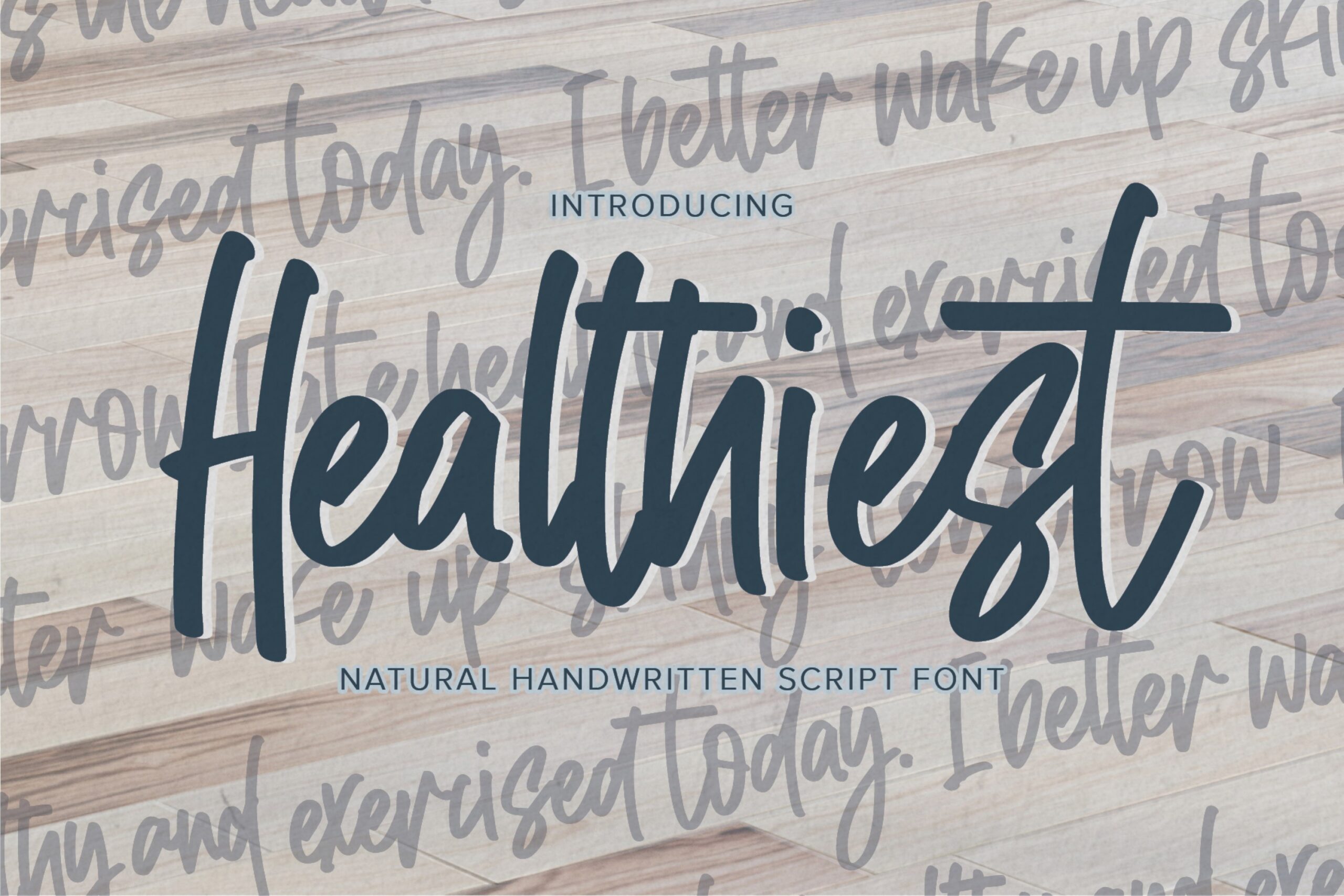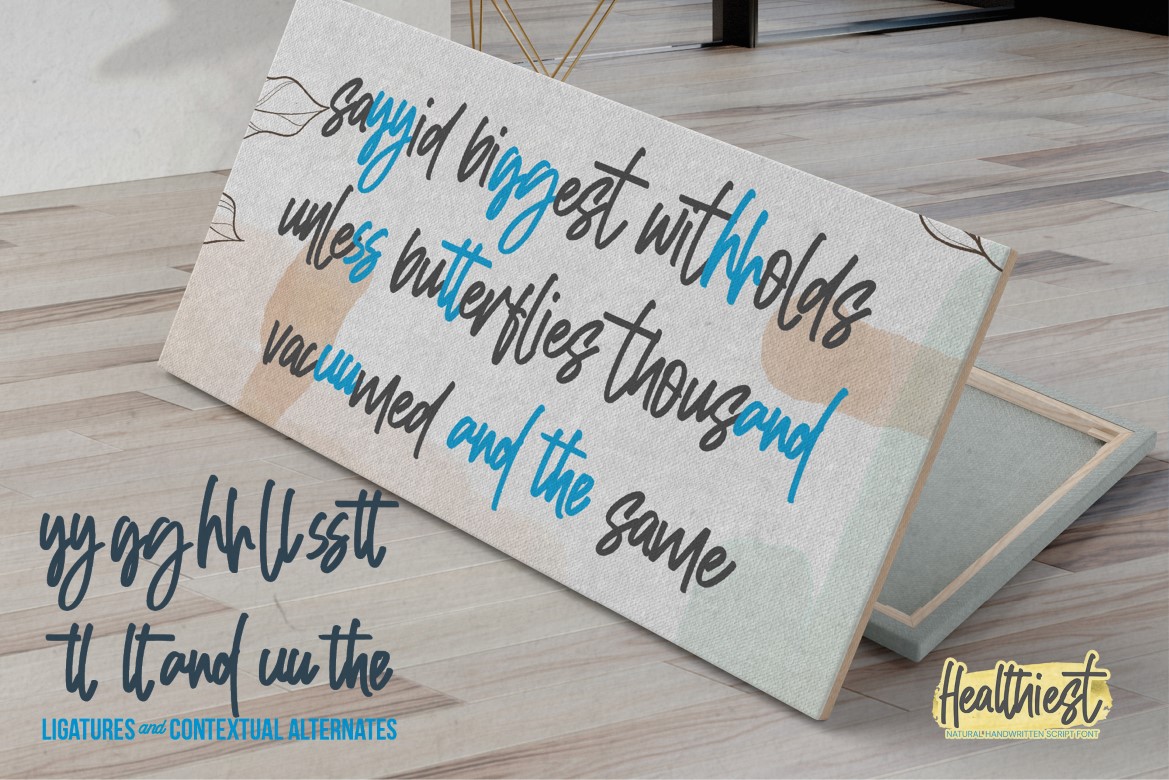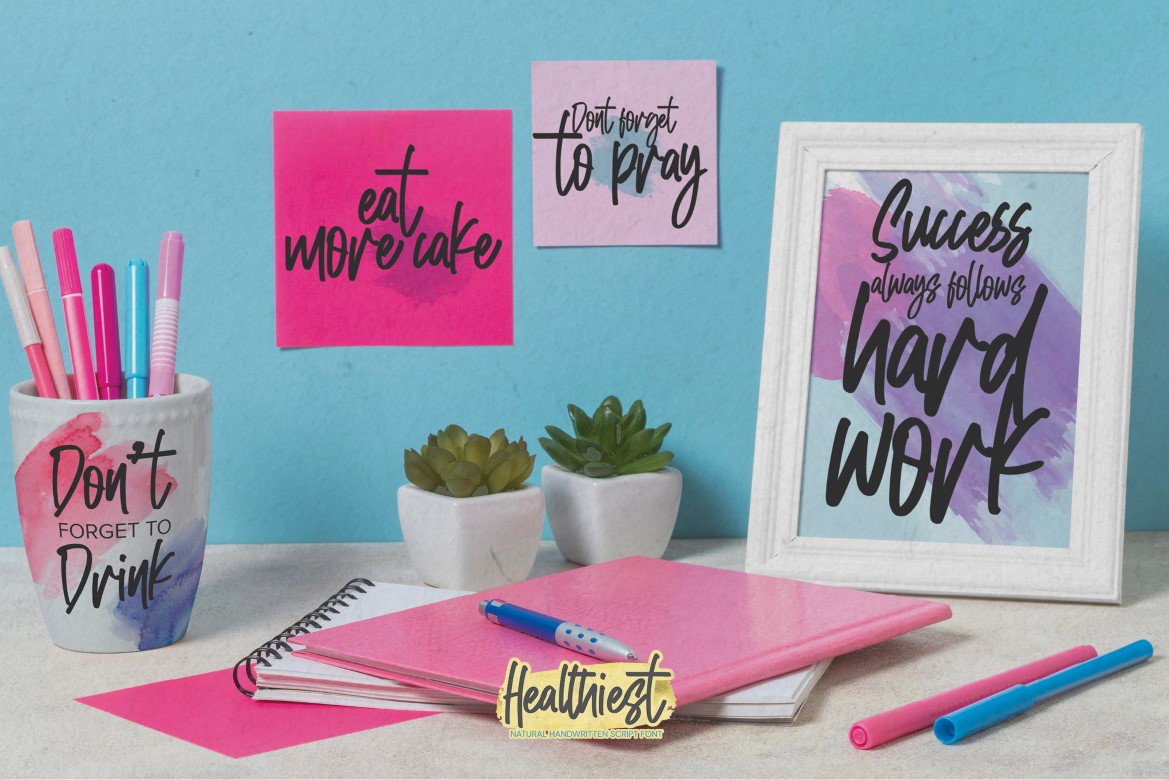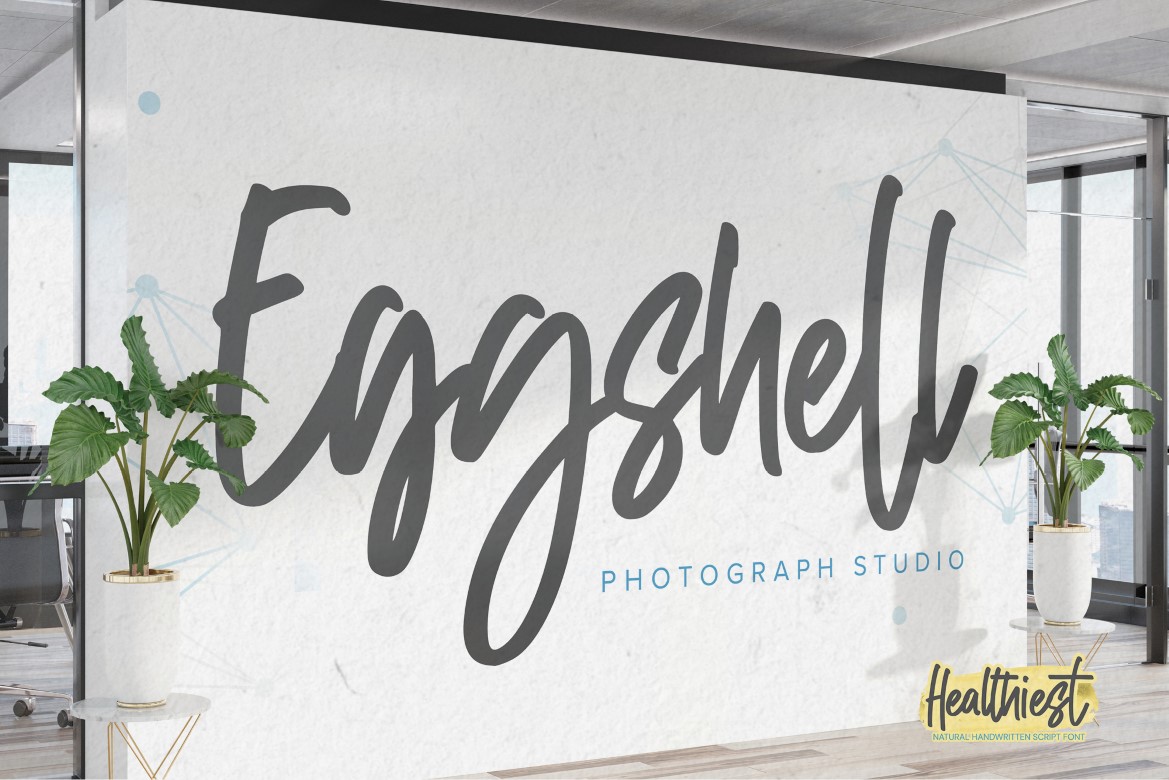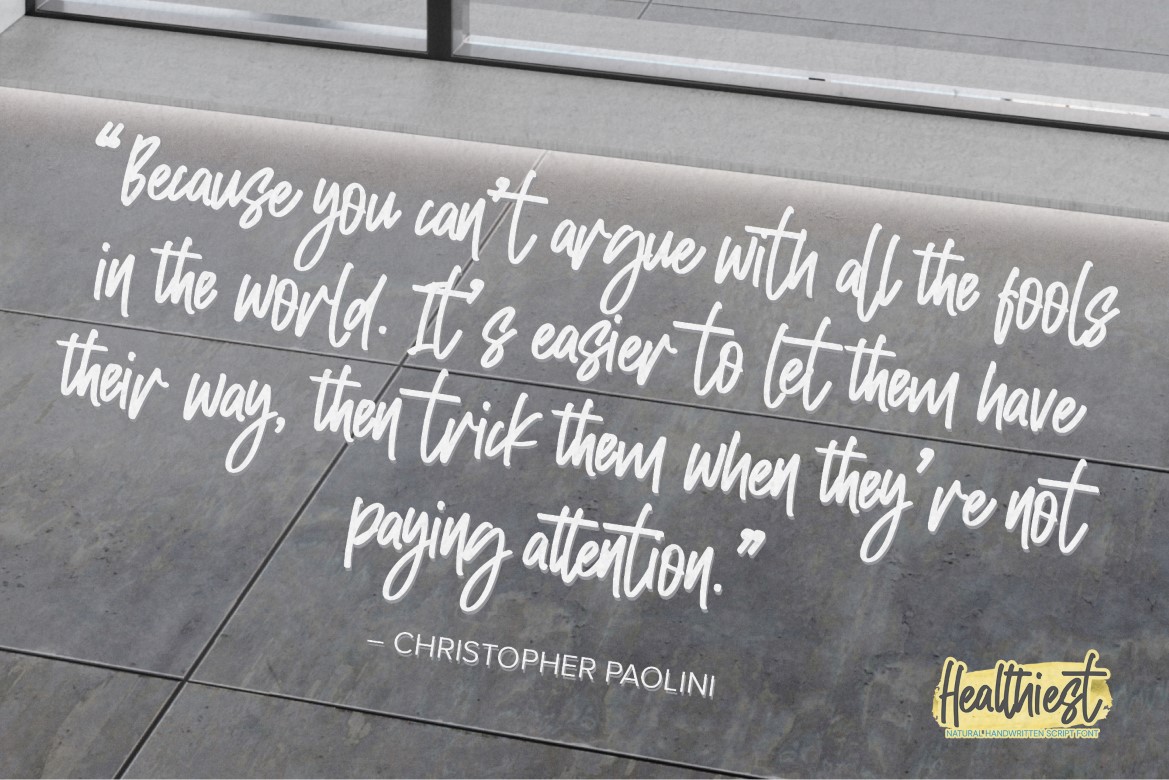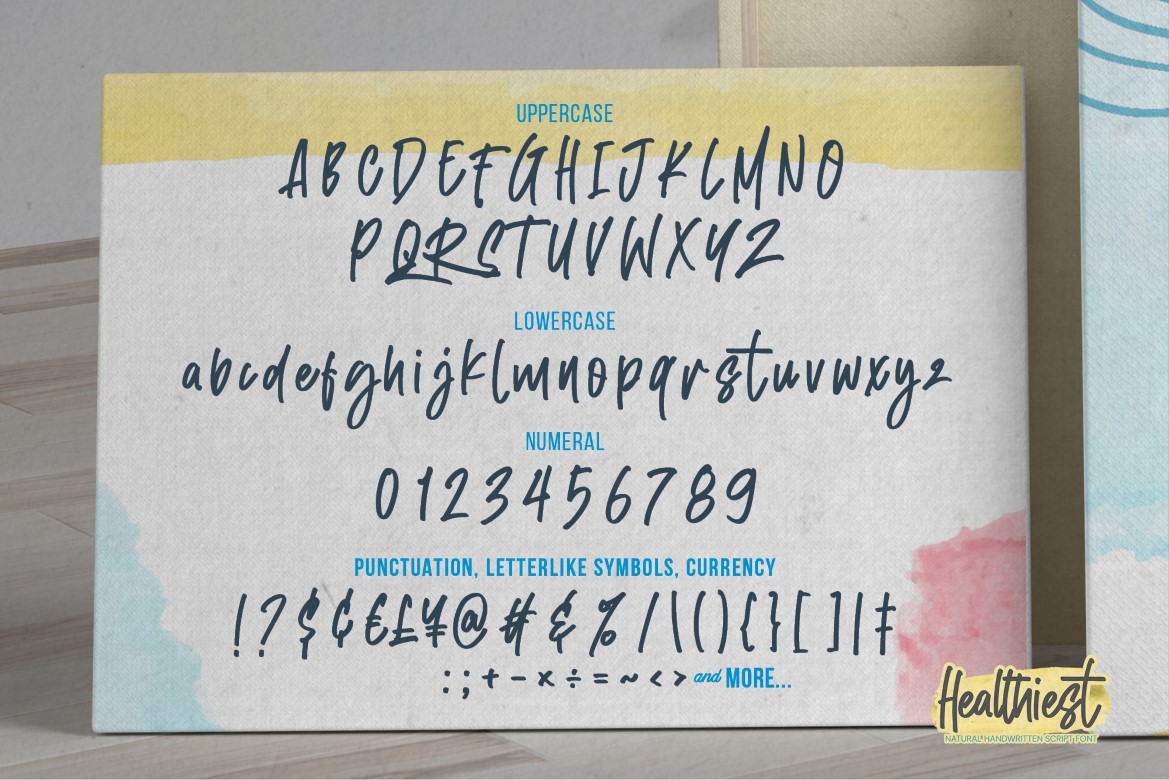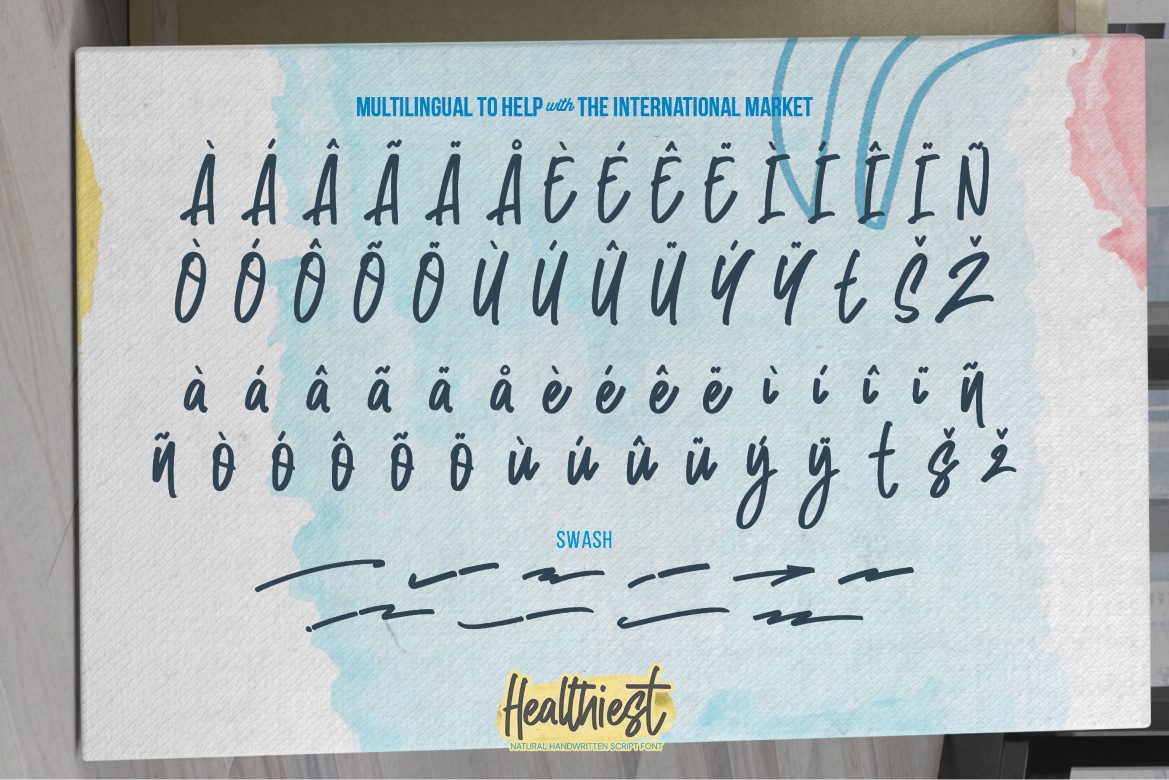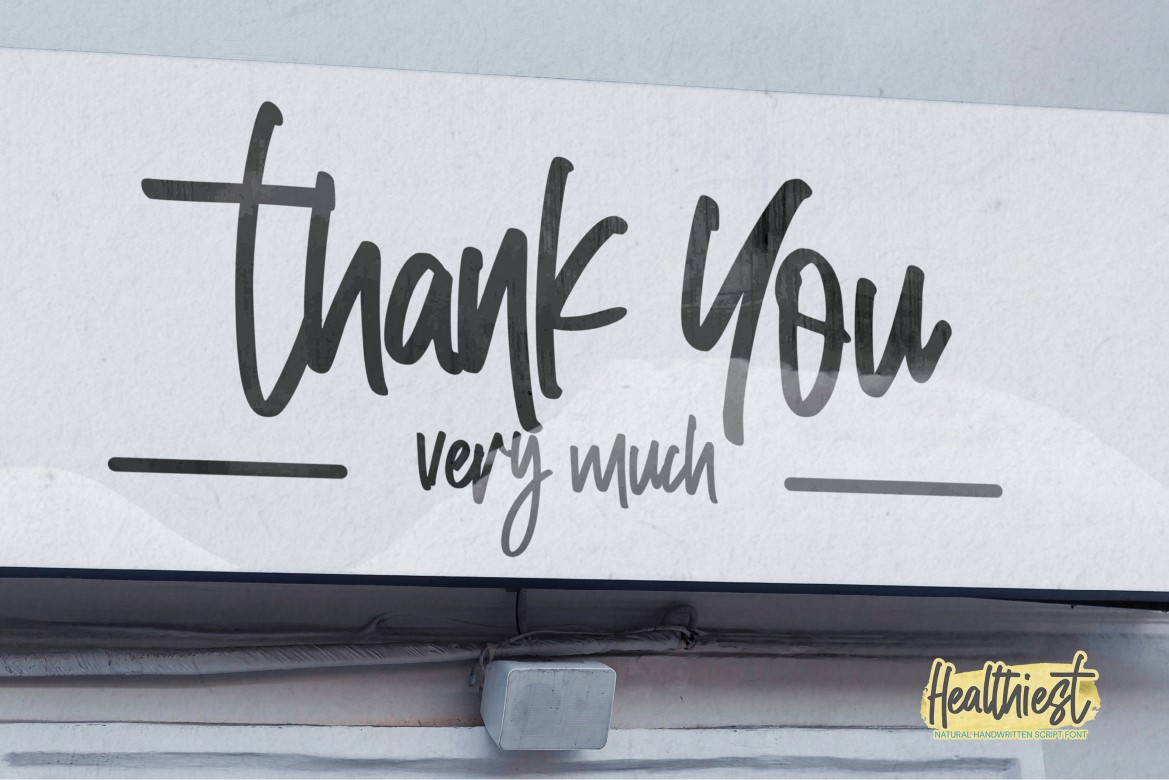
- Healthiest – Natural Handwritten Script Font
Healthiest – Natural Handwritten Script Font that is written casually and quickly.
That is why Healthiest has a authentic, and unique characteristic more natural look. You can activate Ligatures and Alternates glyphs OpenType panel.
Healthiest Perfect for logo designs,This handmade font will make your design has a beautiful natural touch for each details. It is perfect for any design project as Invitation, book cover, craft or any design purposes.
photos, photography overlays, signs, window art, scrapbooking, tags and so much more!